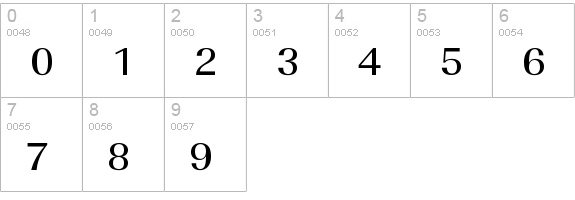
URWImperialTOTMedExtWid Font Details
URWImperialTOTMedExtWid is a versatile and elegant font that exudes a sense of classic sophistication. Its clean lines and balanced proportions make it perfect for a wide range of design projects, from branding to editorial design. The font's timeless aesthetic is sure to add a touch of refinement to any project. What's even better is that URWImperialTOTMedExtWid is available for free download at FontsMarket.com. This means you can easily add this beautiful font to your collection without any cost. Don't miss out on the opportunity to enhance your designs with this high-quality typeface. Download URWImperialTOTMedExtWid today and elevate your creative projects to the next level.